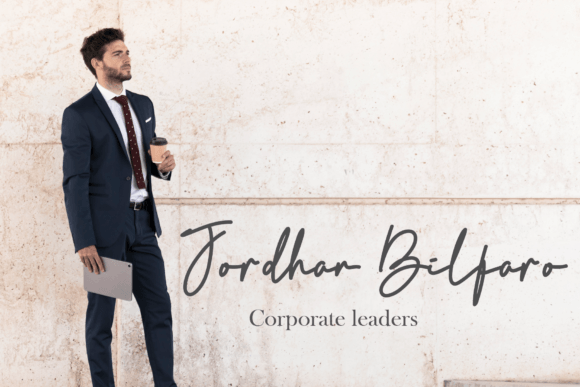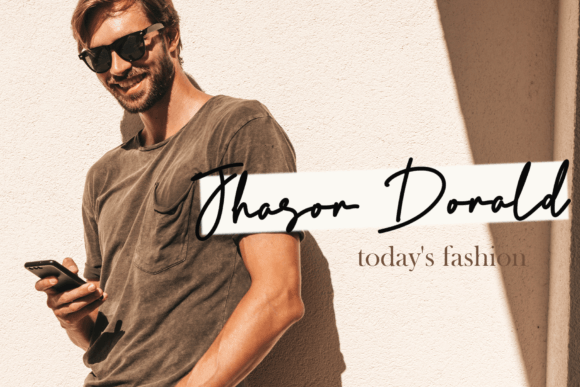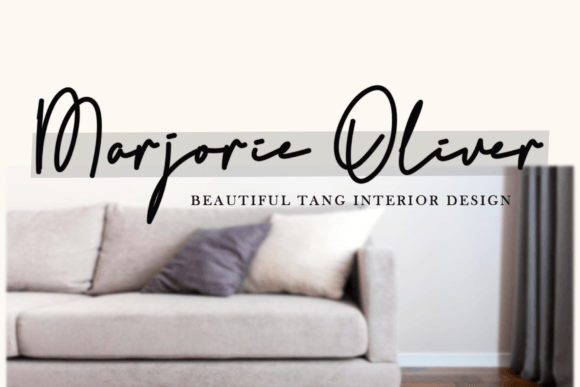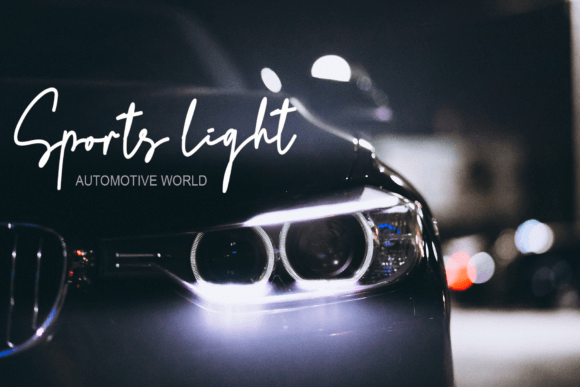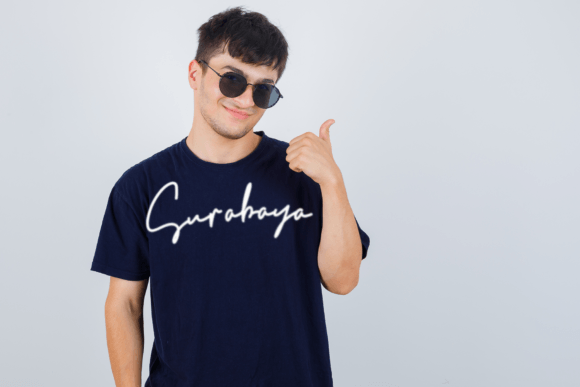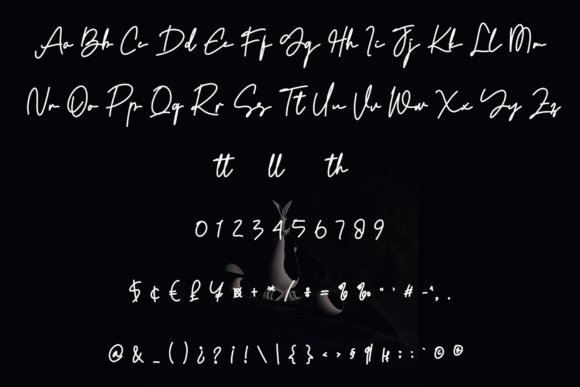
Introduction to Easter Break Font
Easter Break is a stylish and elegant signature script font.
It is perfect for product packaging, branding project, magazines, social media, weddings, and more .
Key Features of Easter Break Font